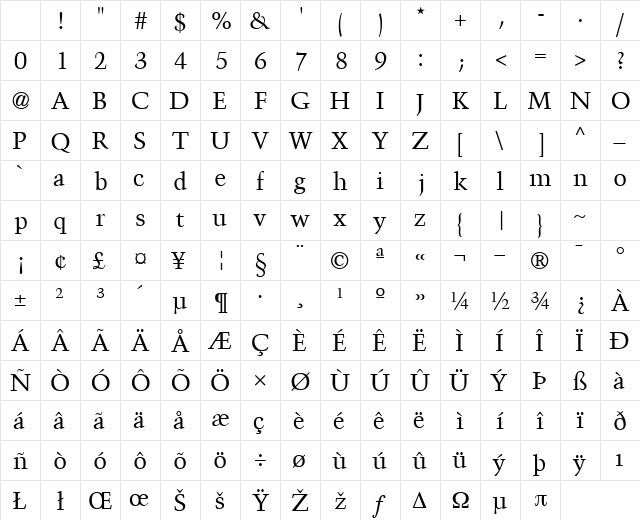
BlackfordSSK Regular
BlackfordSSK Family
Design Context for BlackfordSSK
BlackfordSSK is a composed and adaptable typeface that performs quietly and consistently across a wide range of design contexts.
Pro Tip: Use BlackfordSSK in both headline and body roles to test its range before committing to a single application.